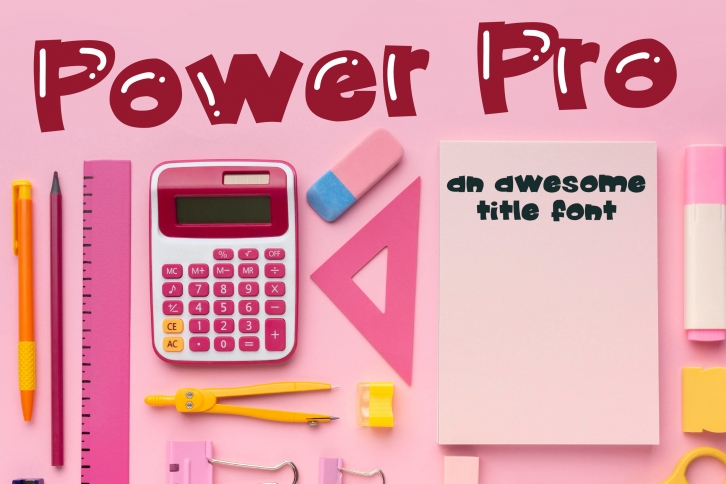
Power Pro is a fun, bubbly and cute display font. This font was particularly crafted for those who need a beautiful and refreshing look to their designs.